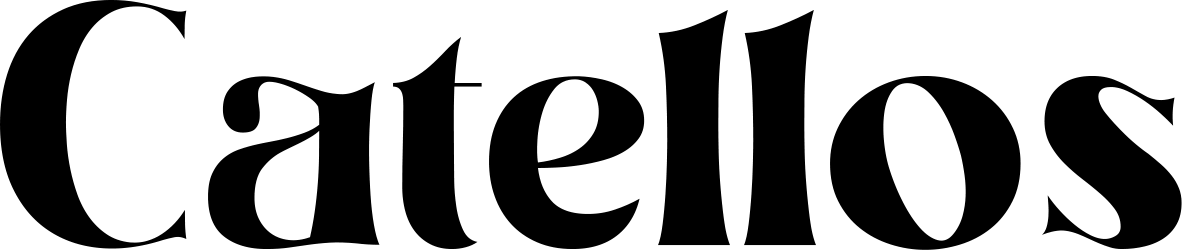
Catellos Font
Catellos can give a groovy and posh makeover to your words. This serif font has an elegant look with big and bold characters that transfer a cheerful feeling to your readers. You can use this bold fashion font for drama and classic movie titles, channel banners, magazines, advertisements, gaming, and book covers.